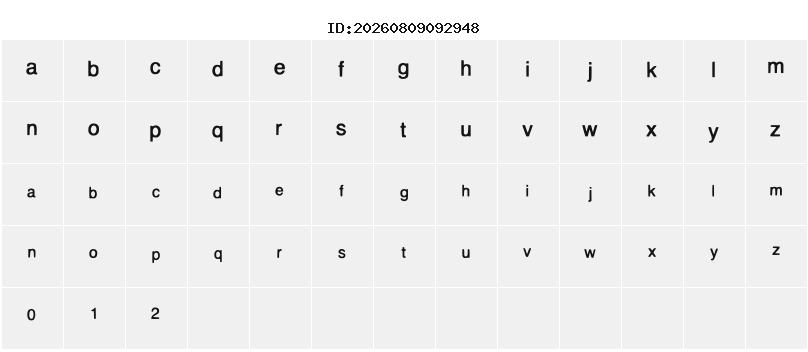
• Font Name: Perdido
• Full Font Name: Perdido
About Perdido.ttf
Perdido.ttf is a modern, elegant sans-serif font designed for ultimate readability and visual harmony. Perfect for branding, headlines, web design, and print materials.